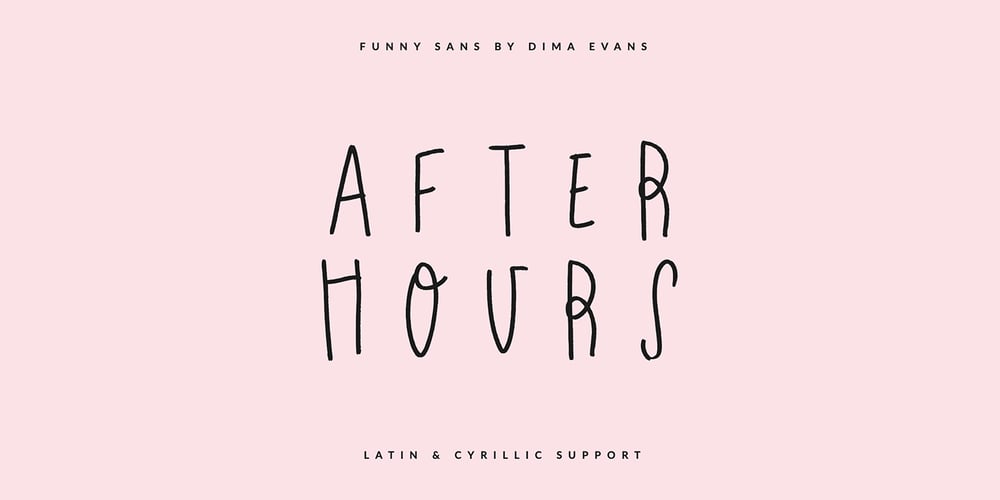
After Hours Font Family was designed by Dmitrii Chirkov and published by Supfonts. After Hours contains 1 styles and family package options. After Hours is a cute handwritten font with Cyrillic support. It is perfect for branding, wedding invitations, menu design, YouTube covers and many moreFont includes a full set of gorgeous uppercase and lowercase letters, numbers, a large selection of punctuation marks & Cyrillic supportAfter Hours – это симпатичный рукописный шрифт с поддержкой кириллицы. Он идеально подходит для брендинга, свадебных приглашений, дизайна меню, обложек YouTube и многого другогоШрифт включает в себя полный набор великолепных прописных и строчных букв, цифр, большой выбор знаков препинания и поддерживает кириллицуTest it out below to see how it could look for your next project!Includes: Regular Script Latin languages support Cyrillic languages support Uppercase and lowercase Numbers and punctuation Check out my blog: https://www.instagram.com/di.zigner https://pinterest.com/dmitriychirkov7 Enjoy